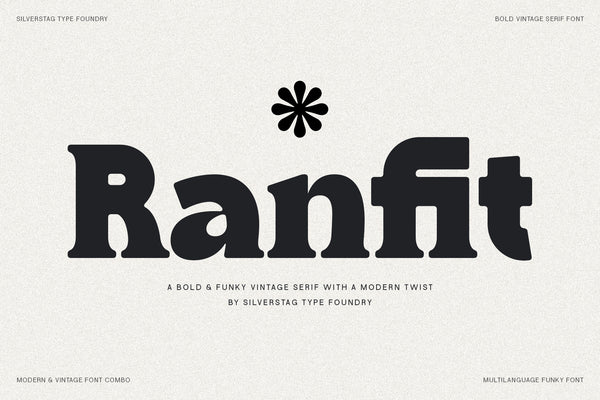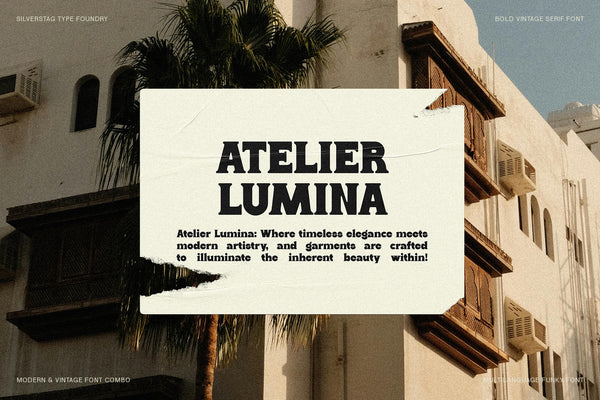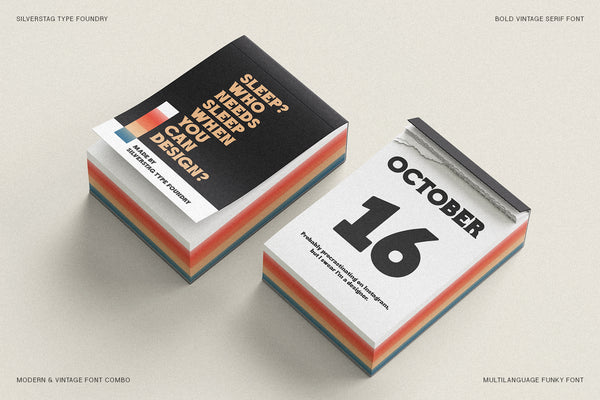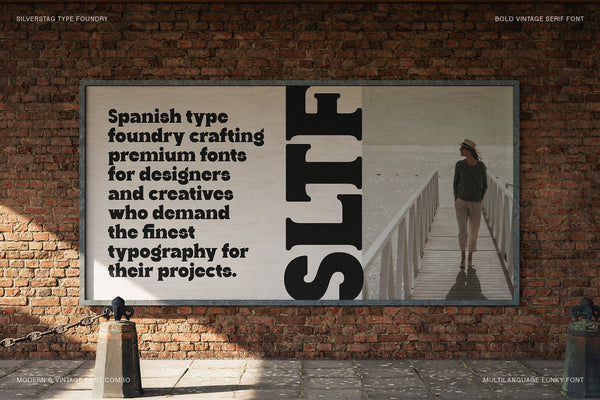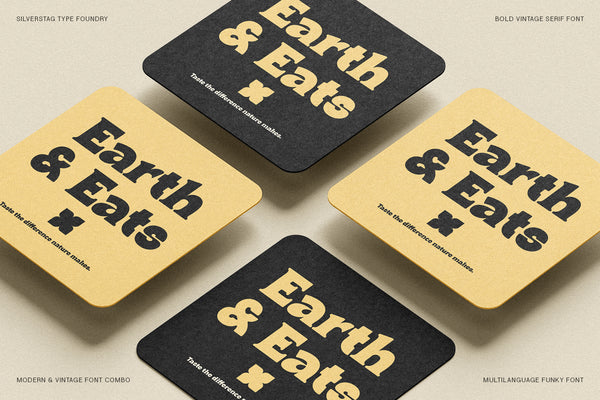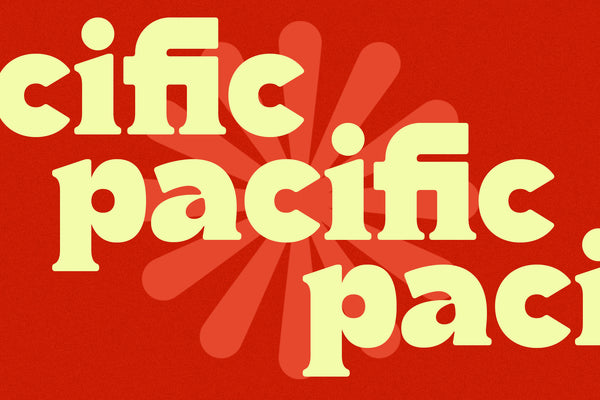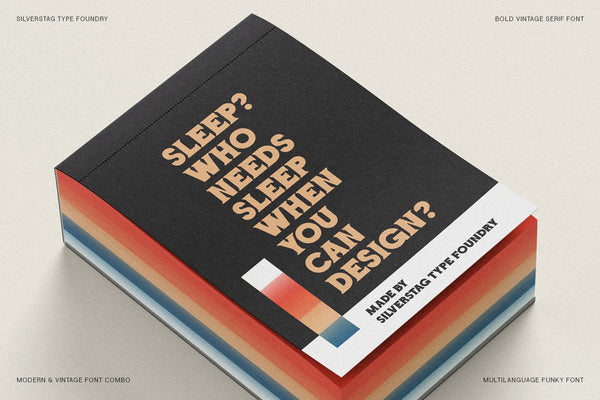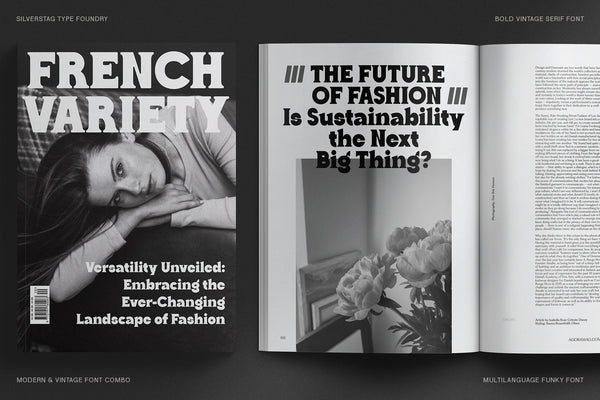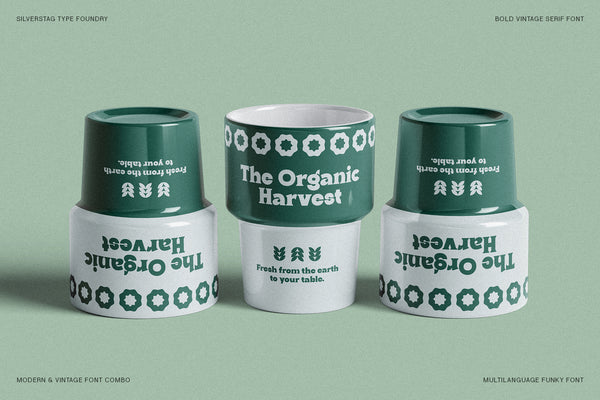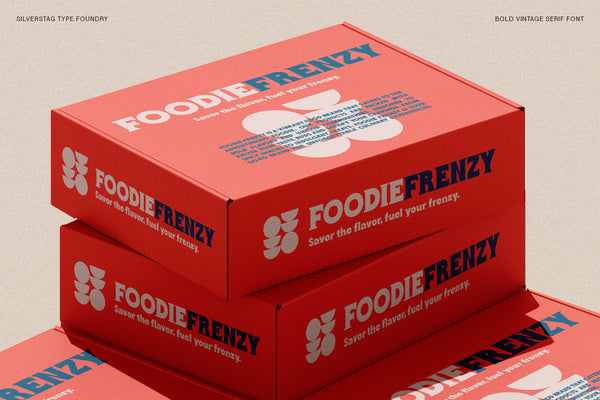
Ranfit - Bold & Funky Serif Font
Ranfit is a bold and funky serif typeface that fuses retro flair with fresh contemporary energy. Inspired by vintage signage and nostalgic packaging, Ranfit features chunky serifs, playful curves, and expressive letterforms—perfect for logos, headlines, and standout branding.
Designed to bring personality into any project, Ranfit captures the warmth of...
Ranfit is a bold and funky serif typeface that fuses retro flair with fresh contemporary energy. Inspired by vintage signage and nostalgic packaging, Ranfit features chunky serifs, playful curves, and expressive letterforms—perfect for logos, headlines, and standout branding.
Designed to bring personality into any project, Ranfit captures the warmth of classic typography while staying crisp and relevant for modern design. Its unique alternates and meticulously drawn details set it apart from traditional vintage fonts, making it ideal for designers who want a bold serif with character.
Whether you’re creating product packaging, editorial spreads, or large display type, Ranfit delivers impact and charm in equal measure. It’s versatile, stylish, and full of fun attitude—ready to take center stage in both print and digital work.
Who-needs-sleep-when-you-can-design business cards and calendar mockup in Ranfit bold serif font
Earth and Eats coaster set mockup in Ranfit bold serif font in black and cream
Who-needs-sleep-when-you-can-design black book mockup in Ranfit bold serif font
The Organic Harvest cup packaging mockup in Ranfit bold serif font in green and white
A creating-yourself quote in Ranfit bold serif font over a black-and-white portrait
Atelier Lumina specimen card in Ranfit bold serif font over a woman holding a daisy
Foodie Frenzy box mockup in teal Ranfit bold serif font
Homesick specimen in Ranfit bold serif font over an olive ground with a central portrait
City specimen in orange Ranfit bold serif font naming Madrid Paris and Barcelona
Tilted city showcase in pale pink Ranfit bold serif font naming Barcelona and Madrid
ffi ligature showcase in navy Ranfit bold serif font over mint with striped accents
Atelier Lumina specimen card in Ranfit bold serif font over a Mediterranean building
SLTF billboard mockup in Ranfit bold serif font with a foundry statement on a brick wall
Pacific specimen in cream Ranfit bold serif font over red
French Variety fashion magazine spread mockup in Ranfit bold serif font
Foodie Frenzy box mockup in red Ranfit bold serif font
Madeleine and Jonathan save-the-date mockup in Ranfit bold serif font with a wedding couple
Tilted European-city showcase in yellow Ranfit bold serif font naming Paris Madrid and Barcelona
Elise box packaging mockup in Ranfit bold serif font with a dried-flower inset
Tapestry fashion magazine mockup in Ranfit bold serif font
Prismatic incense box mockup in Ranfit bold serif font in pink with matchsticks
Earth and Eats two-coaster mockup in Ranfit bold serif font with a black and a yellow coaster
Foodie Frenzy stacked boxes mockup in Ranfit bold serif font with special delivery tape
Atelier Lumina specimen card in Ranfit bold serif font over a Mediterranean building
Who-needs-sleep-when-you-can-design business cards and calendar mockup in Ranfit bold serif font
SLTF billboard mockup in Ranfit bold serif font with a foundry statement on a brick wall
Earth and Eats coaster set mockup in Ranfit bold serif font in black and cream
Pacific specimen in cream Ranfit bold serif font over red
Who-needs-sleep-when-you-can-design black book mockup in Ranfit bold serif font
French Variety fashion magazine spread mockup in Ranfit bold serif font
The Organic Harvest cup packaging mockup in Ranfit bold serif font in green and white
Foodie Frenzy box mockup in red Ranfit bold serif font
A creating-yourself quote in Ranfit bold serif font over a black-and-white portrait
Madeleine and Jonathan save-the-date mockup in Ranfit bold serif font with a wedding couple
Atelier Lumina specimen card in Ranfit bold serif font over a woman holding a daisy
Tilted European-city showcase in yellow Ranfit bold serif font naming Paris Madrid and Barcelona
Foodie Frenzy box mockup in teal Ranfit bold serif font
Elise box packaging mockup in Ranfit bold serif font with a dried-flower inset
Homesick specimen in Ranfit bold serif font over an olive ground with a central portrait
Tapestry fashion magazine mockup in Ranfit bold serif font
City specimen in orange Ranfit bold serif font naming Madrid Paris and Barcelona
Prismatic incense box mockup in Ranfit bold serif font in pink with matchsticks
Tilted city showcase in pale pink Ranfit bold serif font naming Barcelona and Madrid
Earth and Eats two-coaster mockup in Ranfit bold serif font with a black and a yellow coaster
ffi ligature showcase in navy Ranfit bold serif font over mint with striped accents